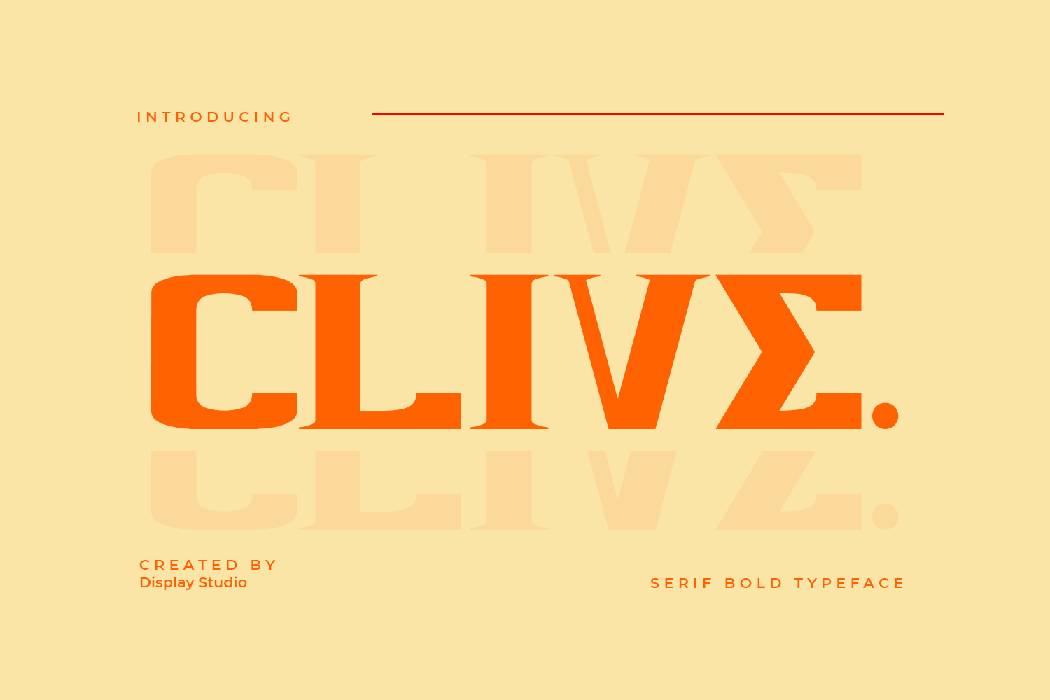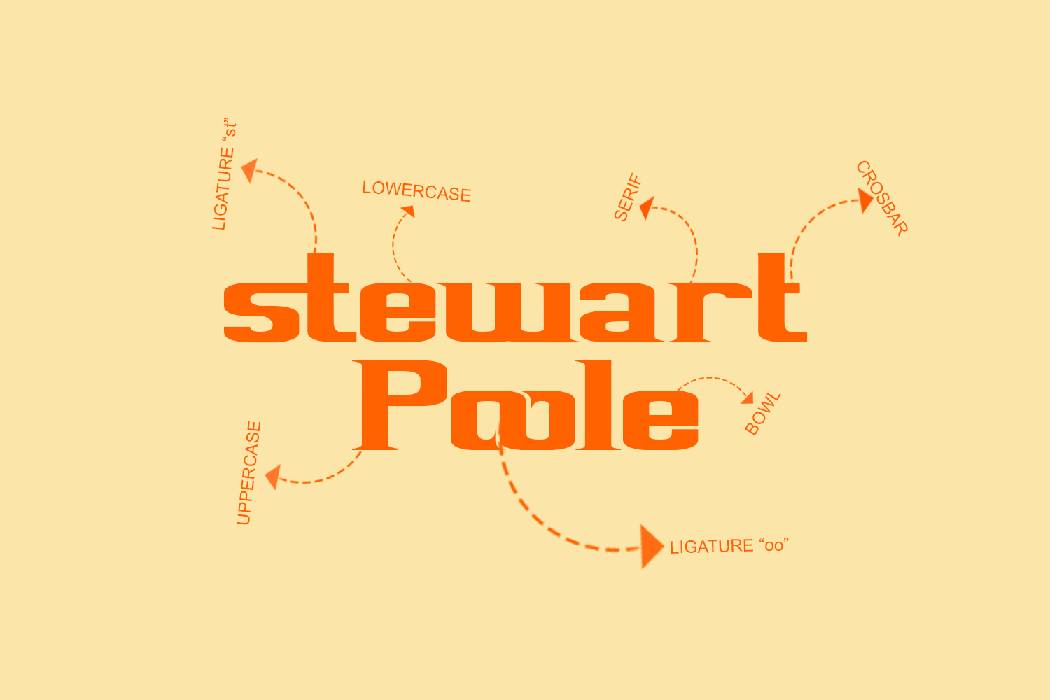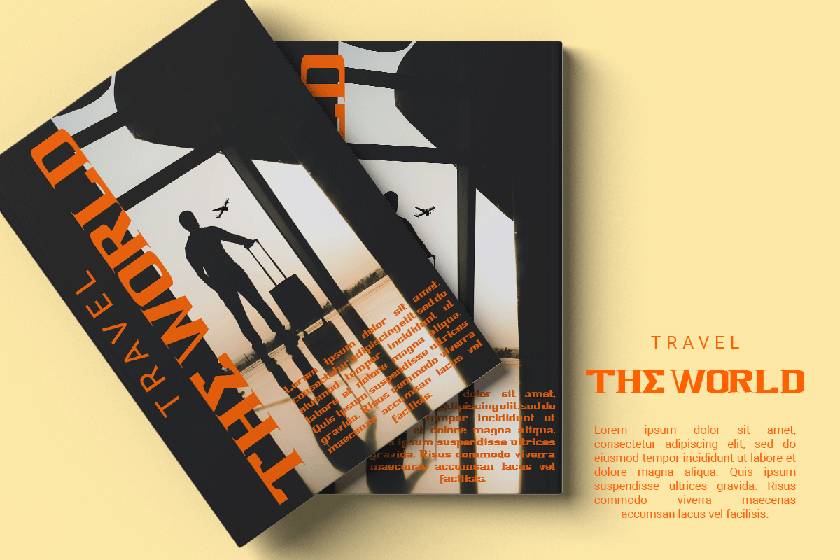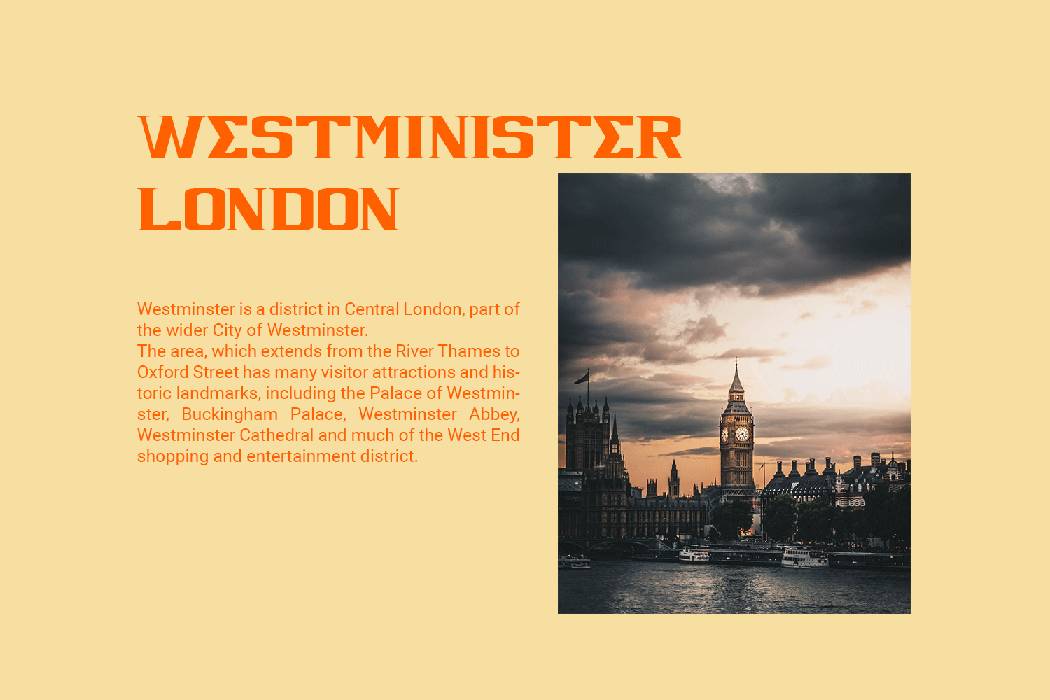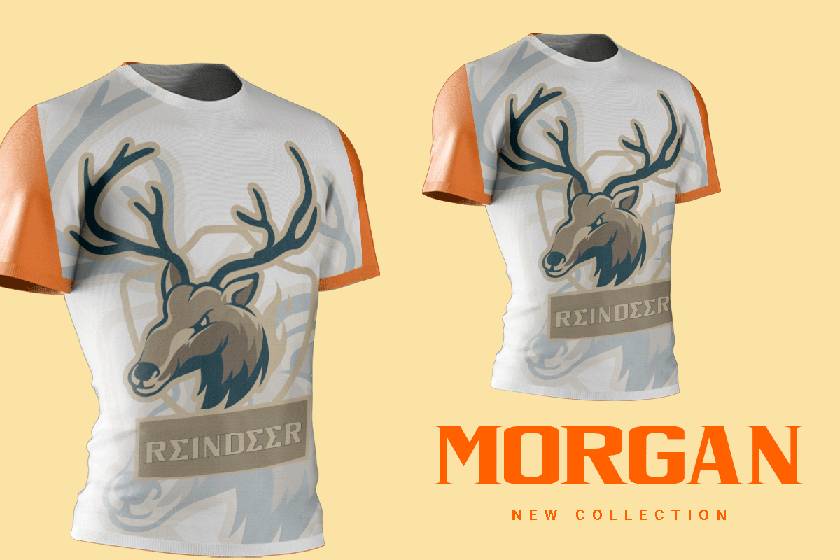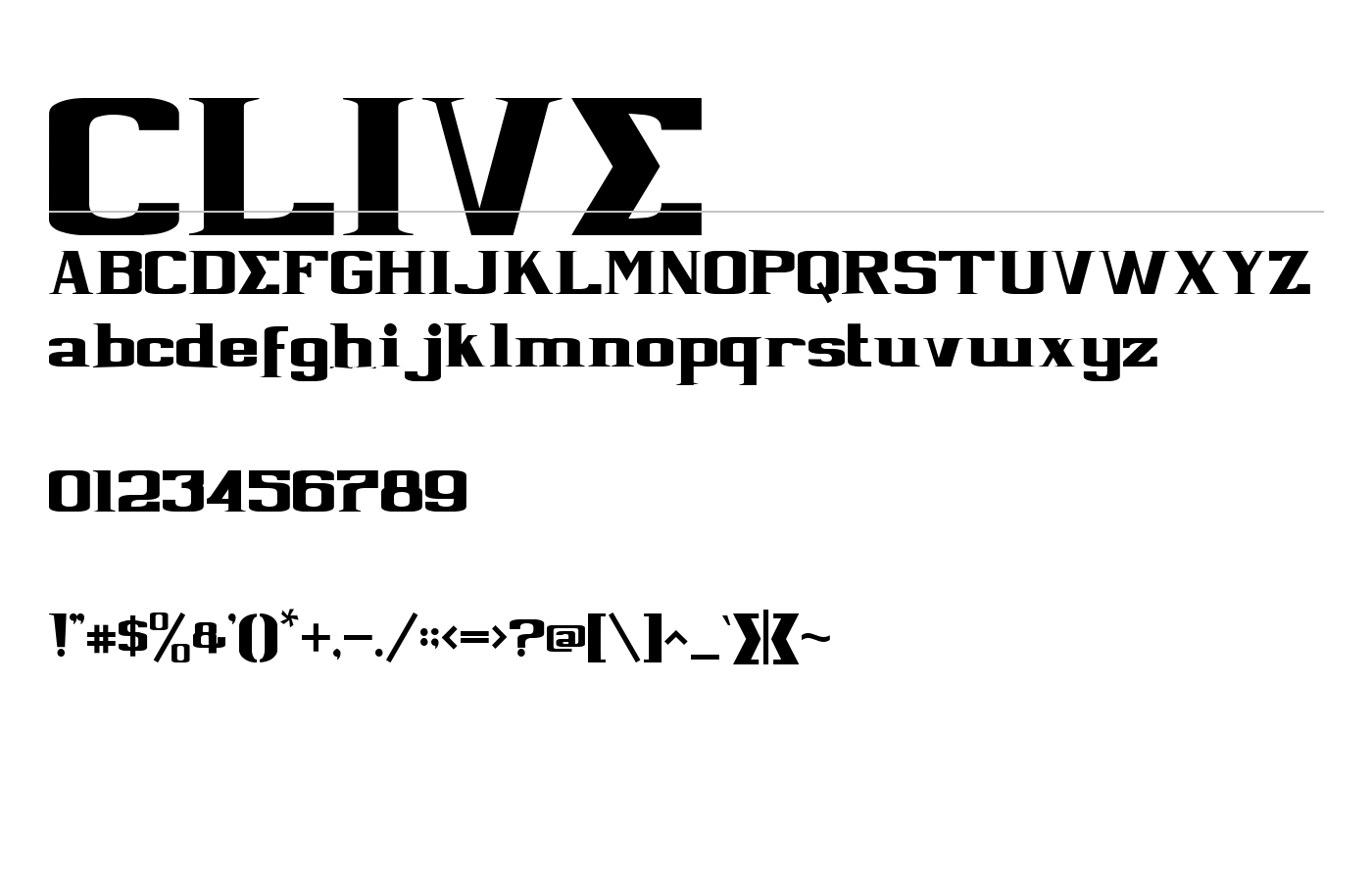
Clive is a bold and condensed slab serif font with strikingly sharp, thick serifs and strong vertical emphasis, giving it a confident and commanding presence. Its high contrast between strokes and slightly quirky letterforms with angular details make it well suited for impactful headlines, logos, and branding in industries seeking a bold, modern, and slightly industrial aesthetic. This font works best when used sparingly to create memorable and attention-grabbing designs.
Clive Font
About Clive Font
| Font family | Clive Font |